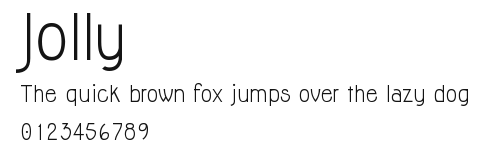
• Font Name: Jolly
• Full Font Name: Jolly
• Version: Version 1.00 February 26, 2010, initial release
• Designer: Lauren Thompson
About Jolly.ttf
Jolly.ttf is a modern, elegant sans-serif font designed for ultimate readability and visual harmony. Perfect for branding, headlines, web design, and print materials.